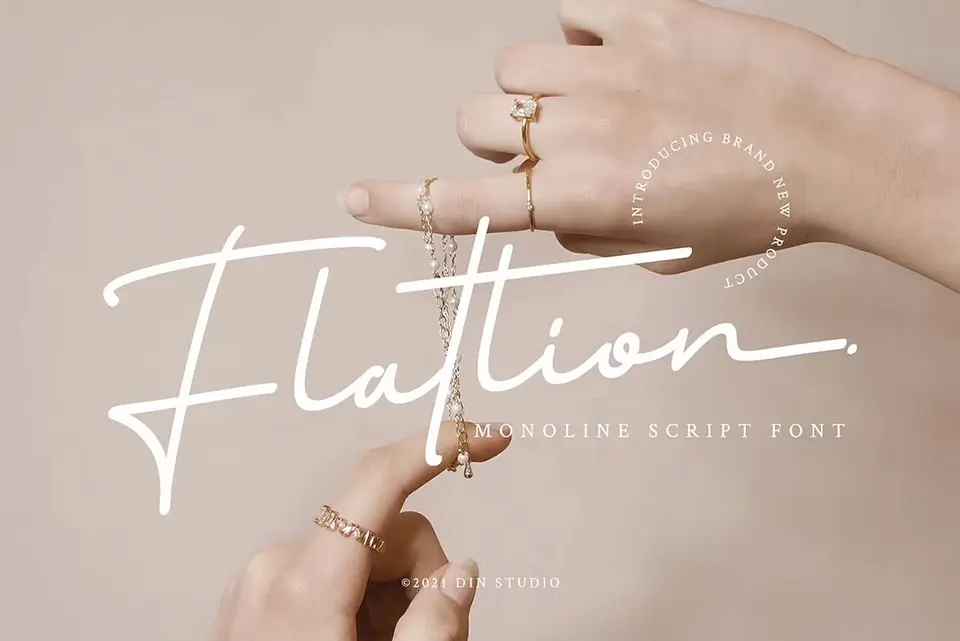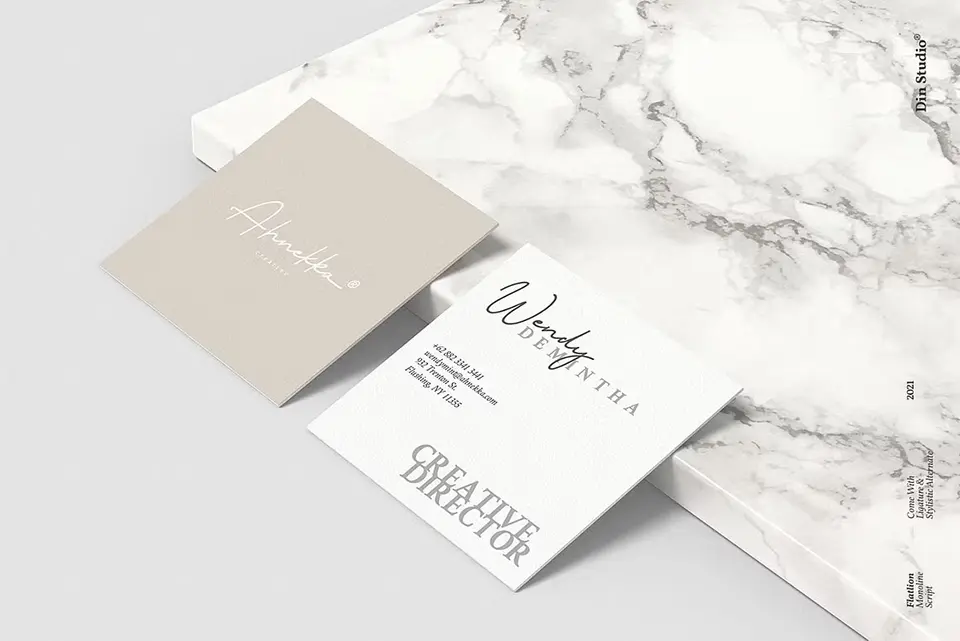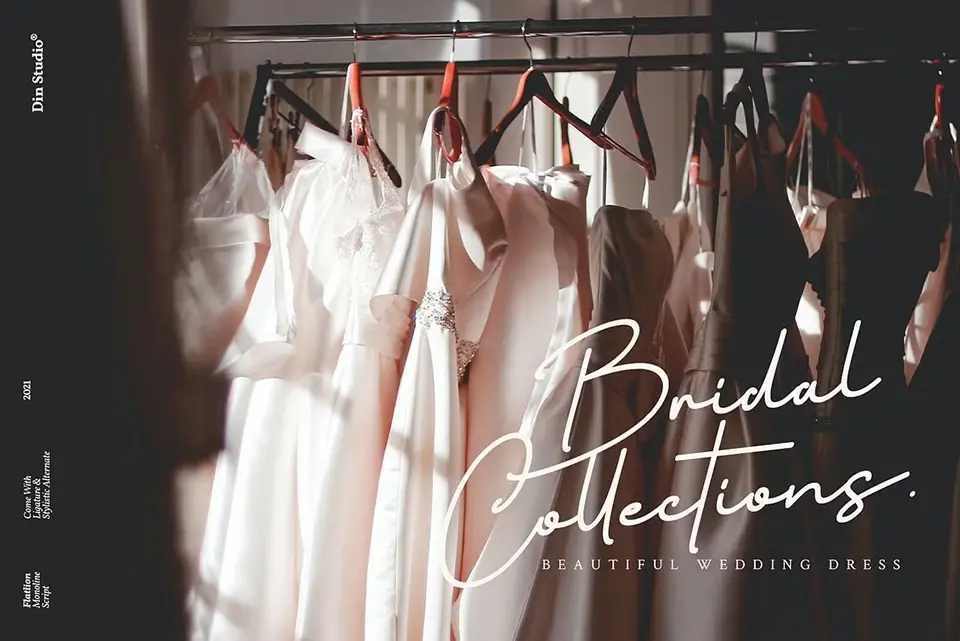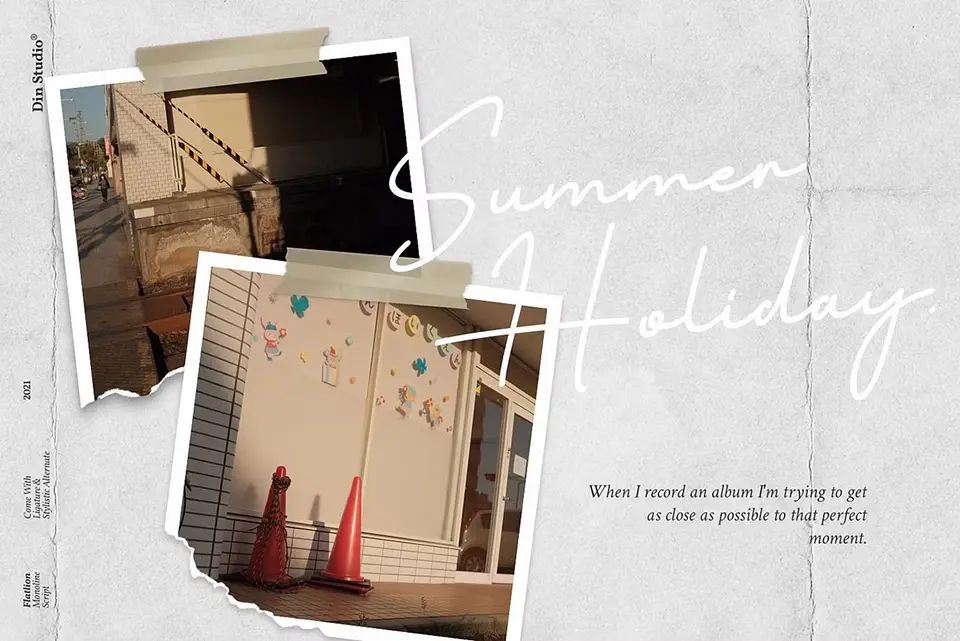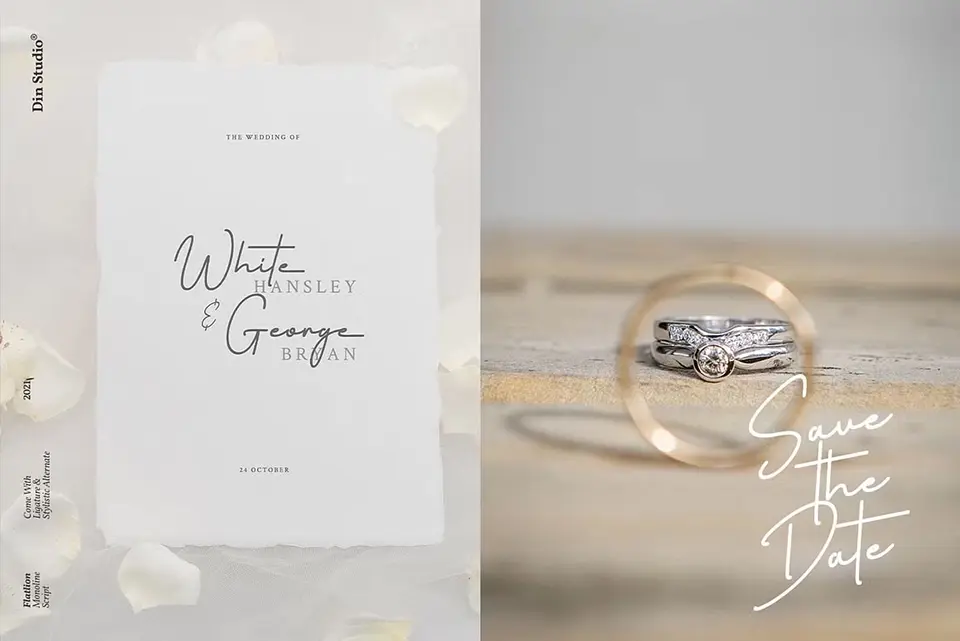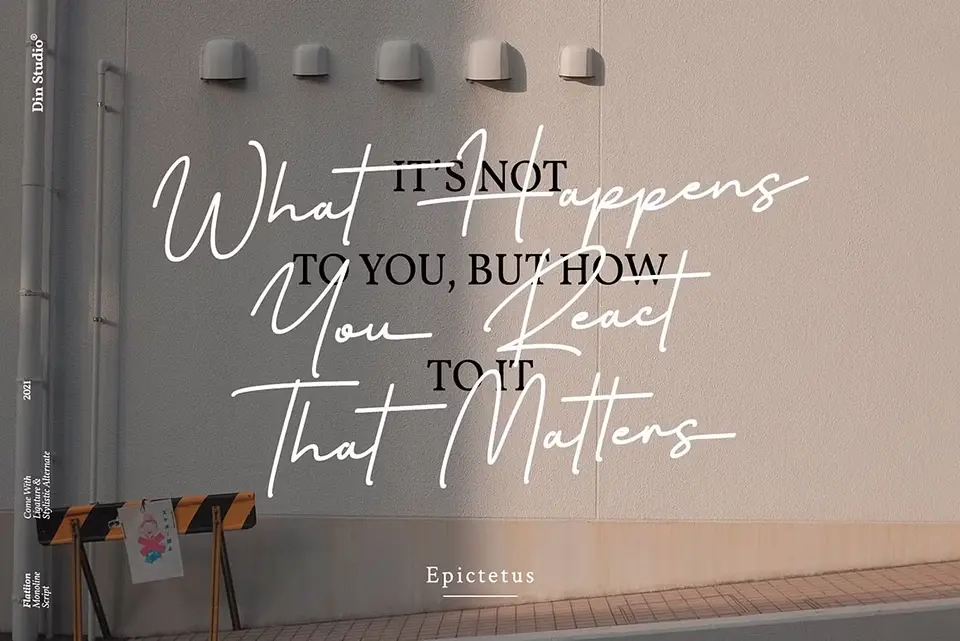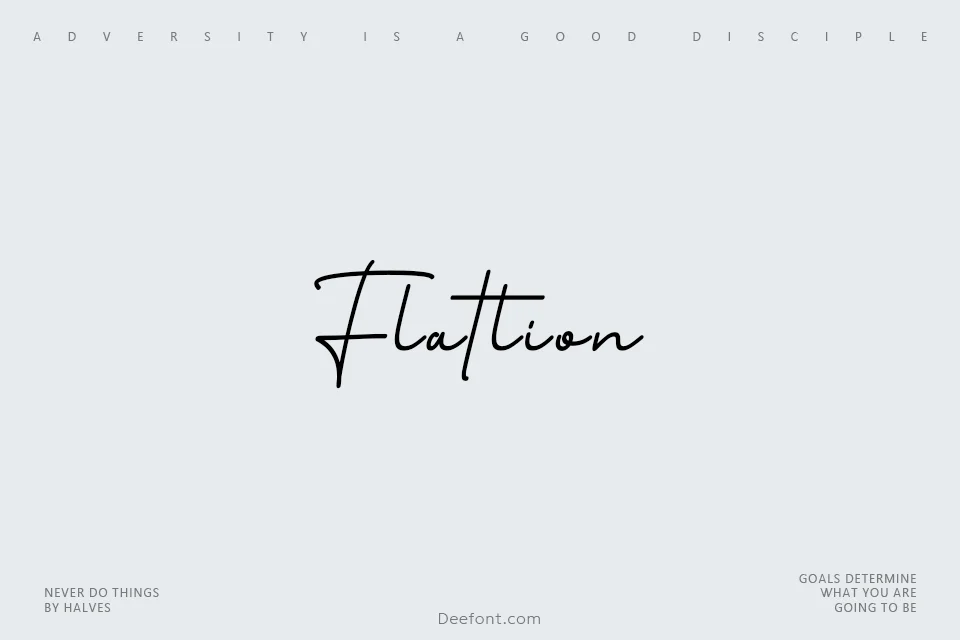
Flatlion Font
Flatlion is an elegant monoline script font designed by Din Studio, perfect for website branding, social media graphics, Pinterest banners, and printed products. With its sophisticated style and modern appeal, this versatile typeface features beautiful ligatures, stylistic sets, swashes, and multilingual support. Ideal for creative projects requiring a touch of elegance and professionalism.